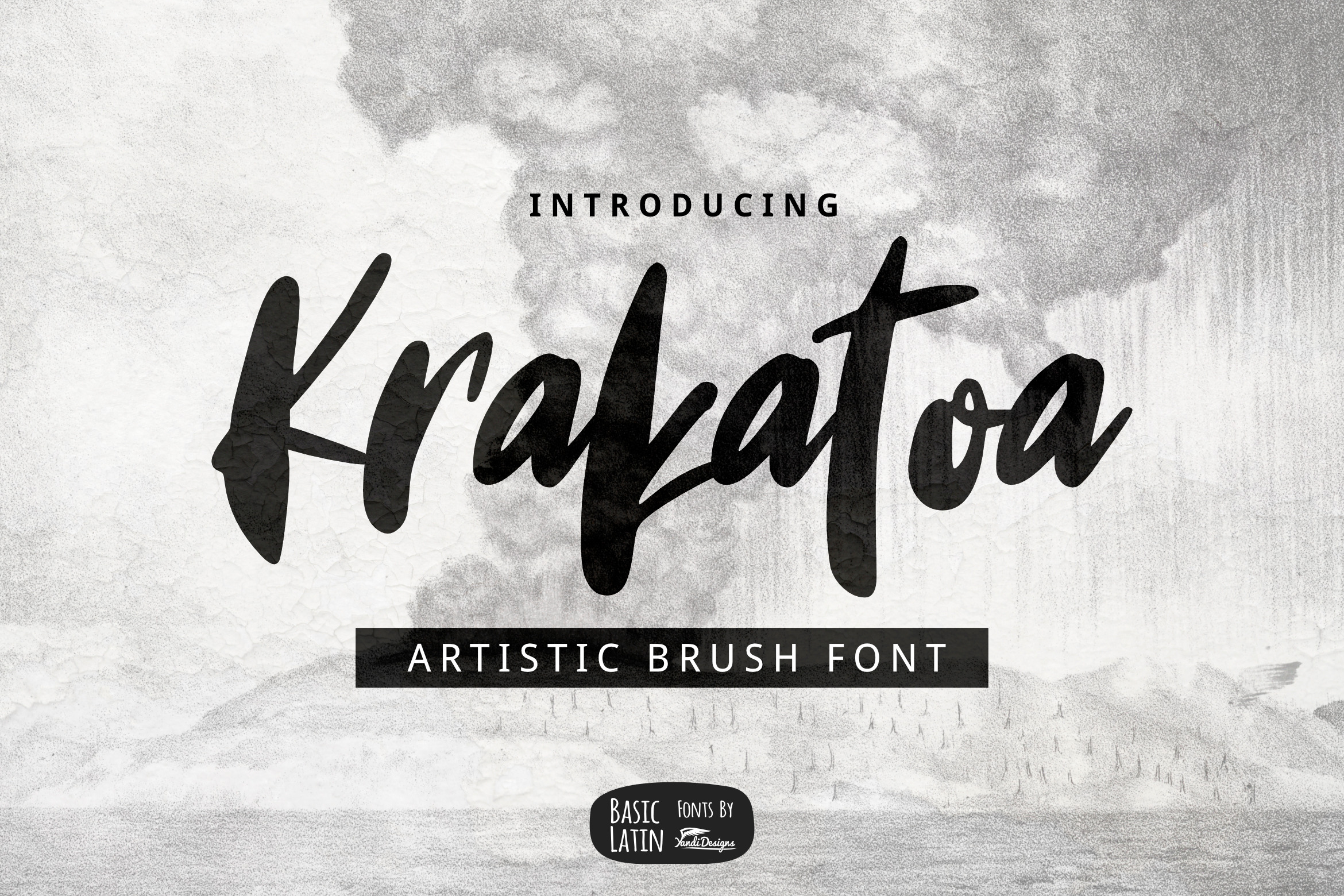
Krakatoa Brush Font
Krakatoa font is simple artistic multipurpose handmade brush font , suitable for many project children book, quotes, logo , heading , title etc.